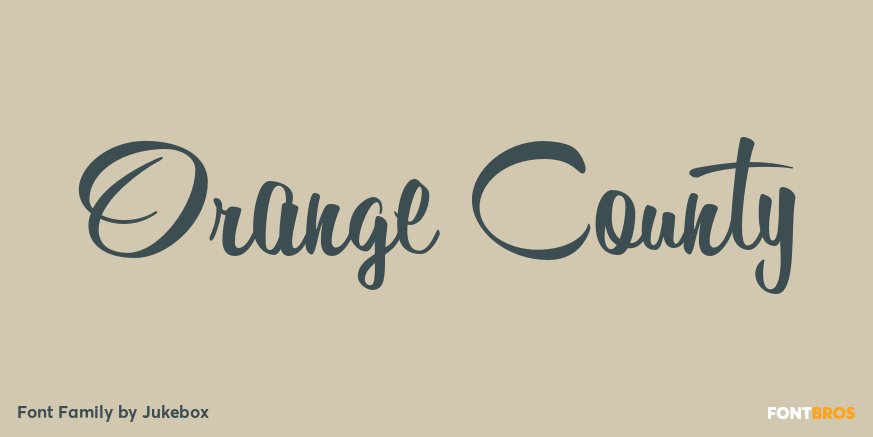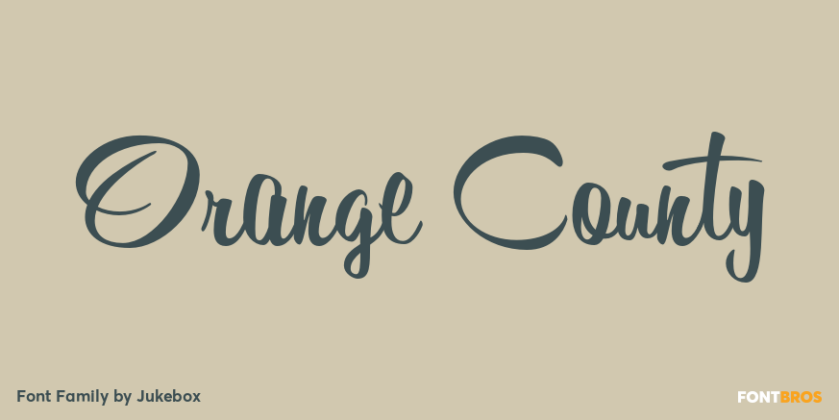
Orange County
About Orange County
Orange County is an original typeface from Jukebox done in the style of classic hand-painted scripts from the 1950s and 1960s. The modulated baseline and x-height lend the typeface a bouncy flair that makes it fun yet classy. The font contains two versions…